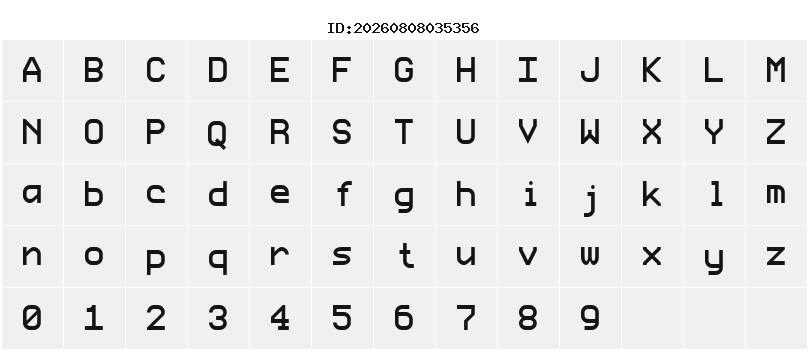
• Font Name: ProFontWindows
• Full Font Name: ProFontWindows
About ProFontWindows.ttf
ProFontWindows.ttf is a modern, elegant sans-serif font designed for ultimate readability and visual harmony. Perfect for branding, headlines, web design, and print materials.